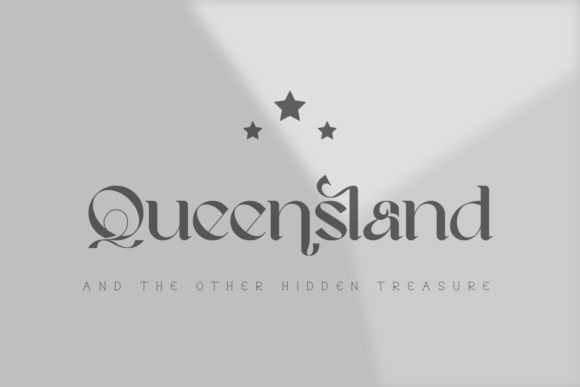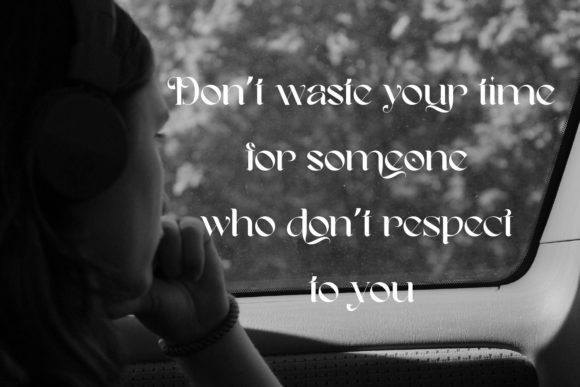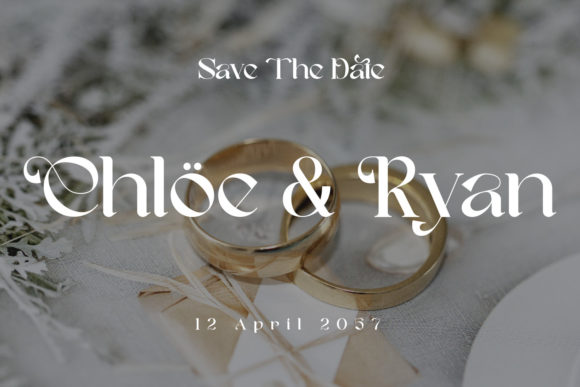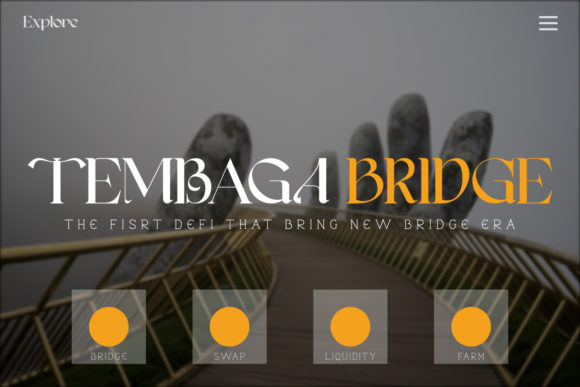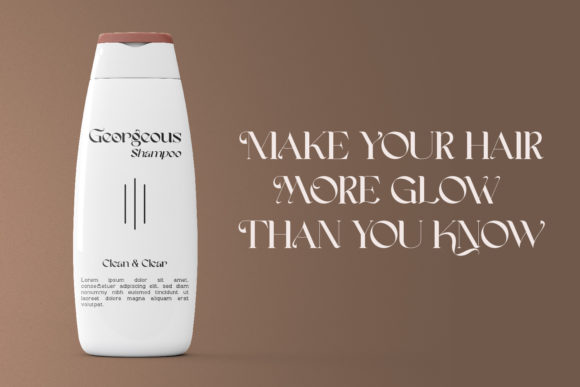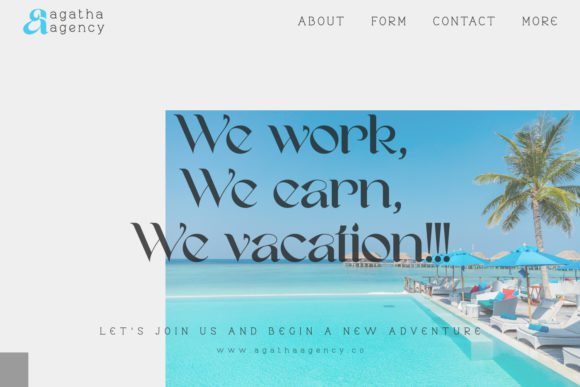
Introduction to Parodisme Font
Parodisme is a high-contrast serif font family that has many alternatives and unique shapes.
Create a modern and beautiful logotype using this font family It supports all aspects of design, especially logo design and branding.
Parodisme Font offers exceptional quality and versatility, making it a valuable addition to your design toolkit. Whether you’re creating for personal projects or commercial use, Parodisme Font delivers professional results.